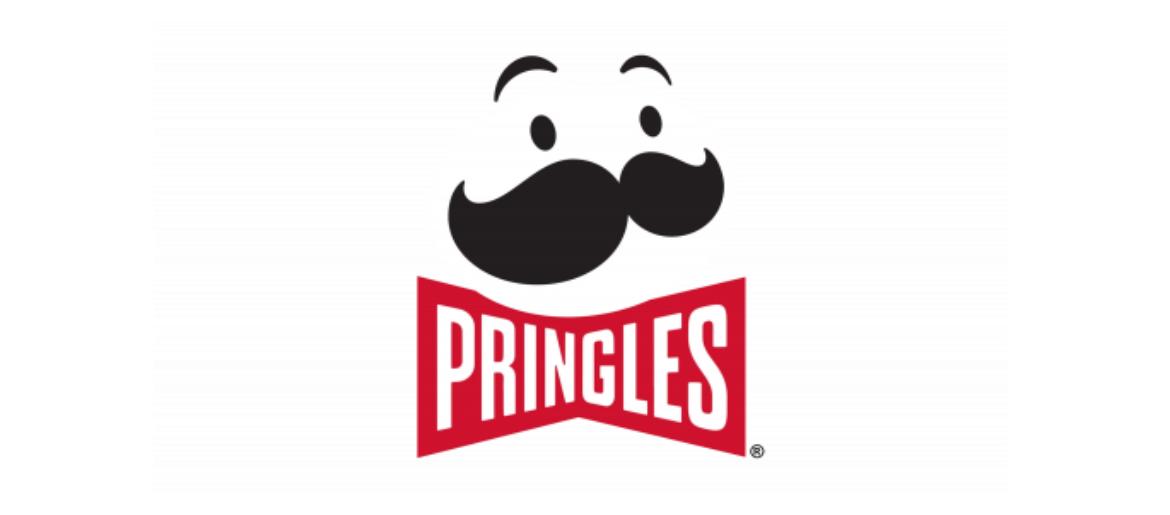
Pringles Font represents one of the most unique and memorable typographic identities in the snack food industry. This playful lettering style has become synonymous with stackable potato chips and innovative snacking experiences, perfectly capturing the brand’s commitment to delivering uniform, flavorful chips that revolutionized traditional snack packaging and consumption methods.
Pringles Font
The Pringles Font showcases a custom display typeface that emphasizes fun and innovation. The letterforms display curved characteristics with playful proportions that suggest the iconic saddle shape of Pringles chips themselves. This typographic choice reinforces the brand’s positioning as a creative snack innovator that challenges conventional chip manufacturing while maintaining consistent quality and flavor delivery.